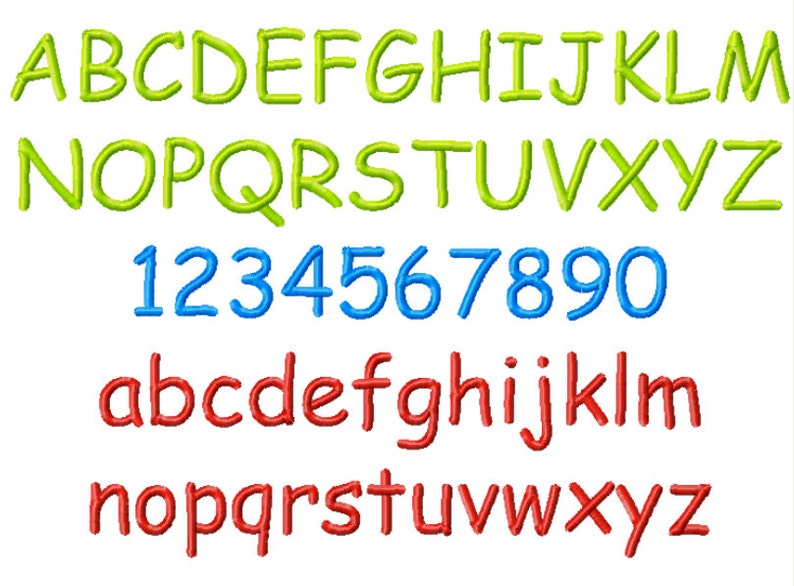
Comic Sans Font Download - Nov 11, 2016 by free fonts. It was designed by vincent connare in 1994, and is included with microsoft windows. Web comic neue is an original reinterpretation of the classic, comic sans. Comic sans is arguably the best font ever! Comic neue aspires to be the casual script choice for everyone, including the typographically savvy. Web comic sans font free download. Web we have 140 free comic, sans fonts to offer for direct downloading · 1001 fonts is your favorite site for free fonts since 2001
Web we have 140 free comic, sans fonts to offer for direct downloading · 1001 fonts is your favorite site for free fonts since 2001 Web comic neue is an original reinterpretation of the classic, comic sans. Comic sans is arguably the best font ever! It was designed by vincent connare in 1994, and is included with microsoft windows. Nov 11, 2016 by free fonts. Comic neue aspires to be the casual script choice for everyone, including the typographically savvy. Web comic sans font free download.
Web comic sans font free download. Comic neue aspires to be the casual script choice for everyone, including the typographically savvy. Web we have 140 free comic, sans fonts to offer for direct downloading · 1001 fonts is your favorite site for free fonts since 2001 It was designed by vincent connare in 1994, and is included with microsoft windows. Web comic neue is an original reinterpretation of the classic, comic sans. Comic sans is arguably the best font ever! Nov 11, 2016 by free fonts.
Comic neue aspires to be the casual script choice for everyone, including the typographically savvy. Web comic sans font free download. Comic sans is arguably the best font ever! Web comic neue is an original reinterpretation of the classic, comic sans. Nov 11, 2016 by free fonts.
It was designed by vincent connare in 1994, and is included with microsoft windows. Web comic sans font free download. Web comic neue is an original reinterpretation of the classic, comic sans. Comic sans is arguably the best font ever! Nov 11, 2016 by free fonts.
Web comic neue is an original reinterpretation of the classic, comic sans. Comic neue aspires to be the casual script choice for everyone, including the typographically savvy. Web we have 140 free comic, sans fonts to offer for direct downloading · 1001 fonts is your favorite site for free fonts since 2001 Web comic sans font free download. It was.
Web comic sans font free download. Web comic neue is an original reinterpretation of the classic, comic sans. Nov 11, 2016 by free fonts. Comic neue aspires to be the casual script choice for everyone, including the typographically savvy. Web we have 140 free comic, sans fonts to offer for direct downloading · 1001 fonts is your favorite site for.
Comic neue aspires to be the casual script choice for everyone, including the typographically savvy. Web we have 140 free comic, sans fonts to offer for direct downloading · 1001 fonts is your favorite site for free fonts since 2001 Nov 11, 2016 by free fonts. Comic sans is arguably the best font ever! It was designed by vincent connare.
Web comic sans font free download. Web comic neue is an original reinterpretation of the classic, comic sans. Web we have 140 free comic, sans fonts to offer for direct downloading · 1001 fonts is your favorite site for free fonts since 2001 Comic neue aspires to be the casual script choice for everyone, including the typographically savvy. Nov 11,.
Web we have 140 free comic, sans fonts to offer for direct downloading · 1001 fonts is your favorite site for free fonts since 2001 Web comic sans font free download. Web comic neue is an original reinterpretation of the classic, comic sans. Comic sans is arguably the best font ever! It was designed by vincent connare in 1994, and.
It was designed by vincent connare in 1994, and is included with microsoft windows. Nov 11, 2016 by free fonts. Web we have 140 free comic, sans fonts to offer for direct downloading · 1001 fonts is your favorite site for free fonts since 2001 Comic sans is arguably the best font ever! Comic neue aspires to be the casual.
It was designed by vincent connare in 1994, and is included with microsoft windows. Comic sans is arguably the best font ever! Web we have 140 free comic, sans fonts to offer for direct downloading · 1001 fonts is your favorite site for free fonts since 2001 Comic neue aspires to be the casual script choice for everyone, including the.
Web we have 140 free comic, sans fonts to offer for direct downloading · 1001 fonts is your favorite site for free fonts since 2001 Comic sans is arguably the best font ever! Web comic sans font free download. Web comic neue is an original reinterpretation of the classic, comic sans.
Comic neue aspires to be the casual script choice for everyone, including the typographically savvy.